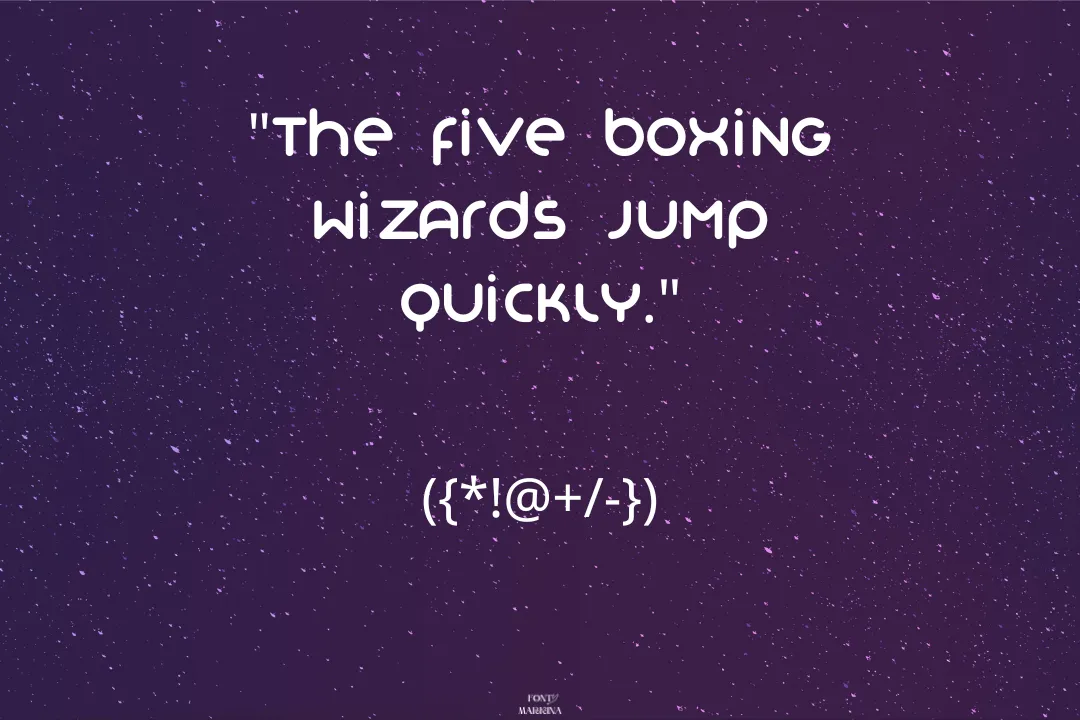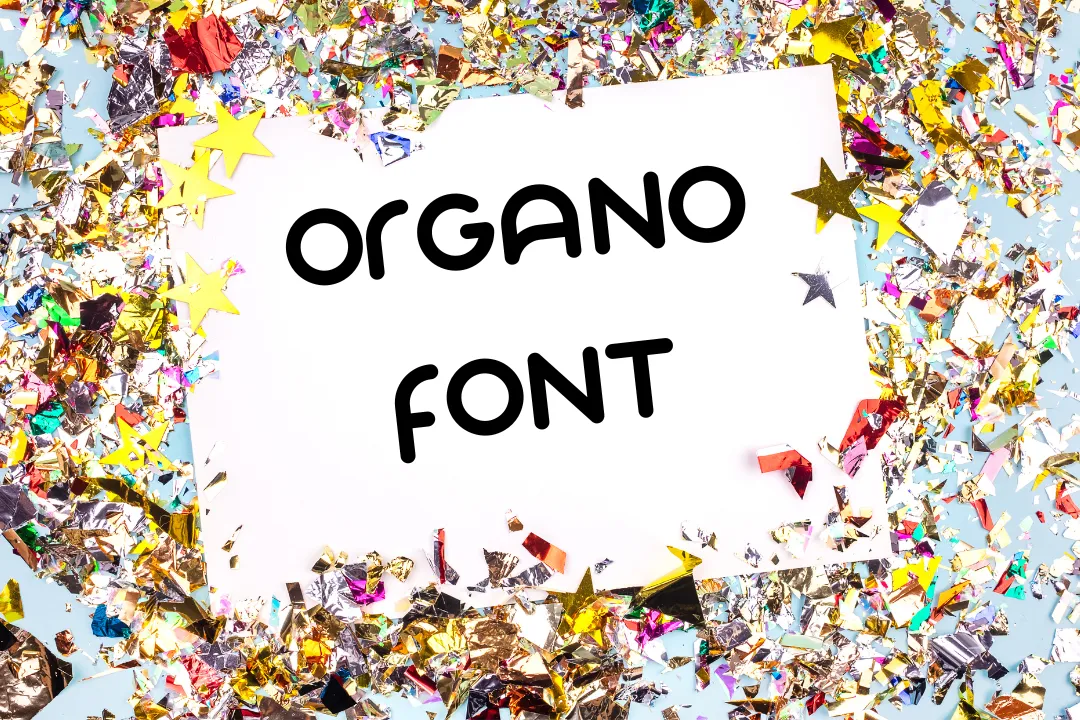
Organo Font is a unique texture that was finally designed by Nikola Nikolov, a Bulgarian graphic designer, and typographer. Nikolov designed this font with the goal of creating a typeface that would evoke a sense of naturalness and organic shapes. The resulting font has a distinctive and elegant appearance that is both modern and timeless.
One of the most striking features of Organo Font is its fluidity. The letters seem to flow into one another, creating a sense of movement and dynamism. This effect is achieved through the use of curved lines and smooth edges, which give the font a soft and welcoming appearance. A bunch of similar fonts to this family are attainable on google fonts. Jojo font is closest to this typography.
Nikolov’s inspiration for the Organo typeface came from nature, particularly from the shapes and forms of plants and trees. It is a unique and versatile typeface that is sure to make an impact on any design project. Its fluid lines and organic shapes make it a standout choice for branding, packaging, and editorial design, while its legibility and clean design ensure that it will be easy to read and use in any context. Its generator tool is very classic.
Usage of Organo Font
Organo typography can be used in a combination of design applications, from print to digital media. Its unique and fluid design makes it particularly well-suited for branding and logo design, where it can help create a distinctive and memorable visual identity for a company or organization.
The font’s organic and natural appearance also makes it a great choice for packaging design, particularly for products that are environmentally friendly or derived from natural materials. The font can help communicate a brand’s commitment to sustainability and promote a sense of harmony with nature. You can also make the pairing of this typography with Monster Hunter Font.
In addition to branding and packaging, Organo texture can also be used in editorial design, such as for book covers or magazine layouts. Its legibility and elegant design make it a great choice for long-form text, where it can help create a sense of flow and readability.
Organo Font View
| Name | Organo Font |
| Designer | Nikola Nikolov |
| Type | Fancy |
Is Organo Font a fancy font?
Yes, this font can be classified as a fancy font due to its unique and fluid design.
Who is the creator of Organo Font?
This texture was created by Nikola Nikolov, a Bulgarian graphic designer, and typographer.